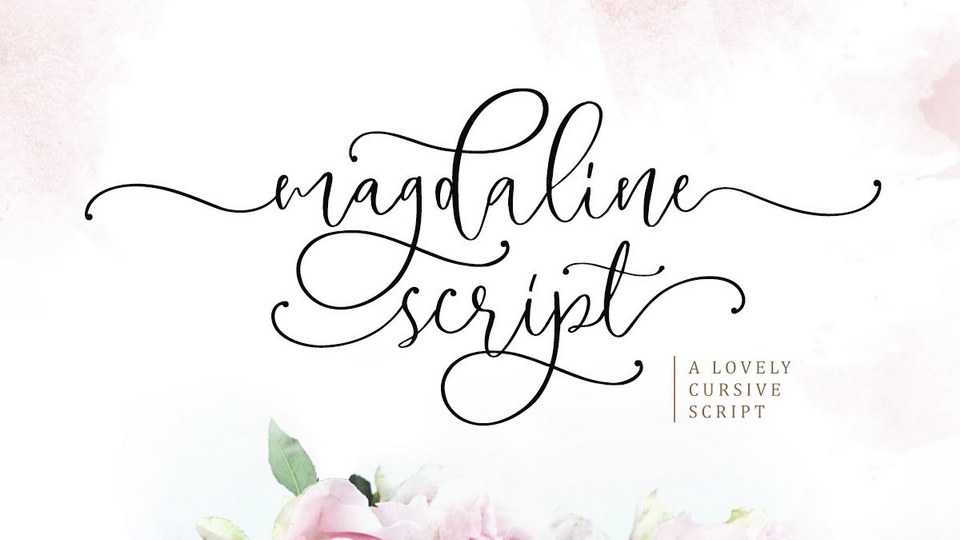
Download Magdaline Script font, lovely modern calligraphy font with charming alternates and swashes. Magdaline Script is perfect to make a logo for branding, beautiful fashion design, suitable for wedding invitation, or handwritten quote.